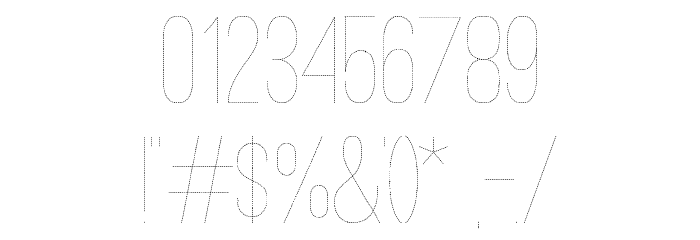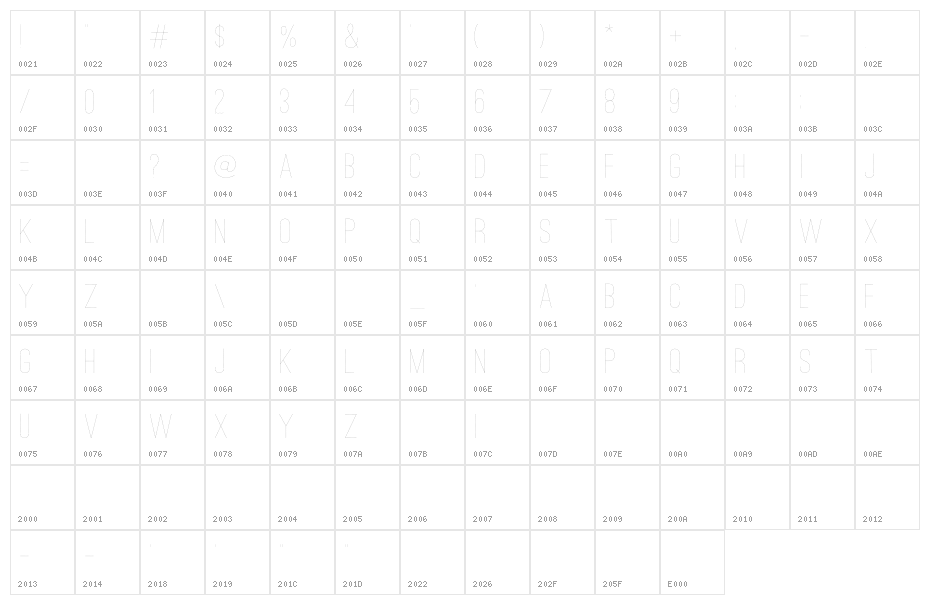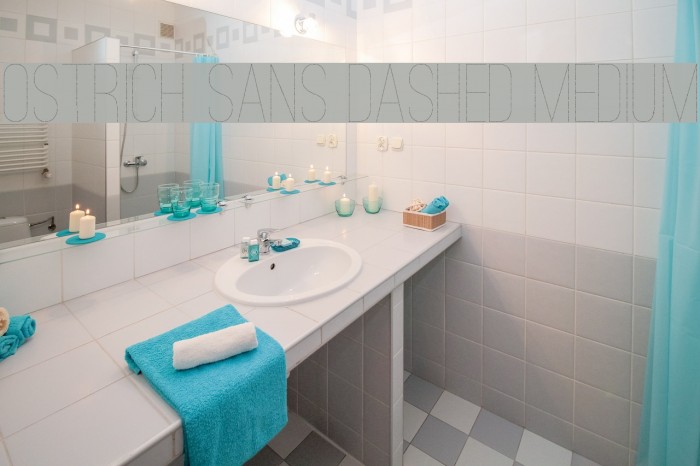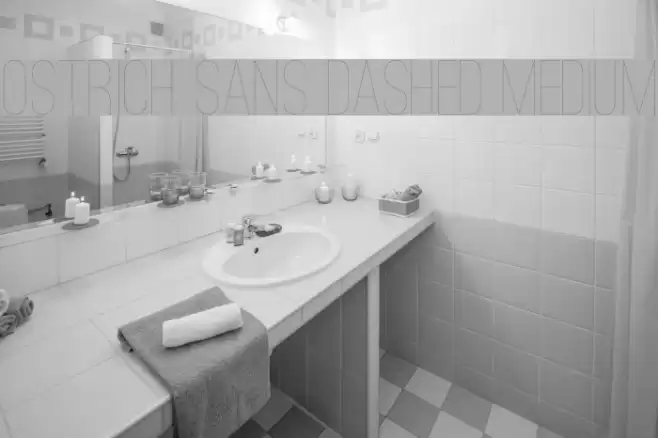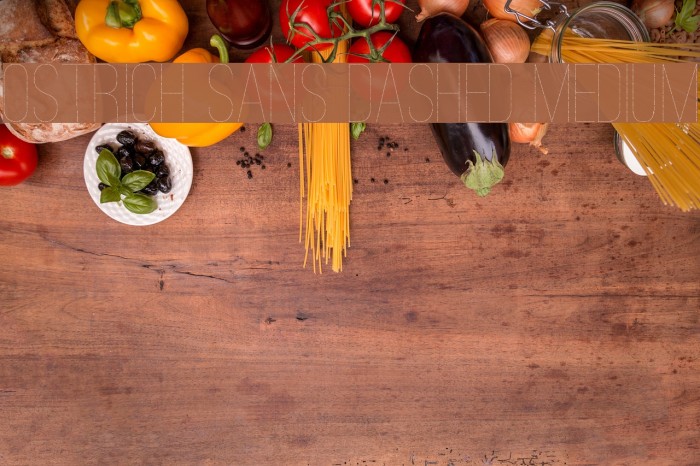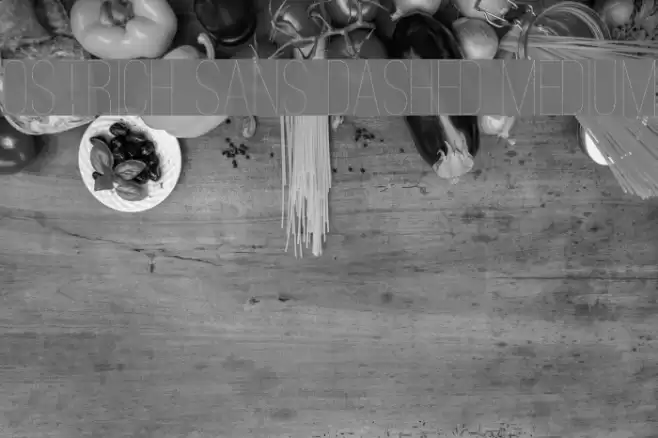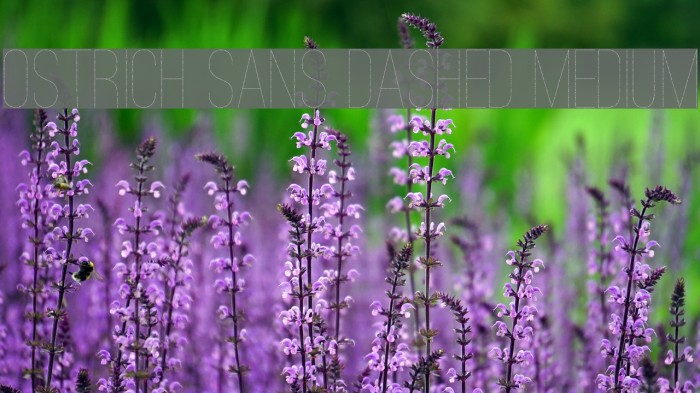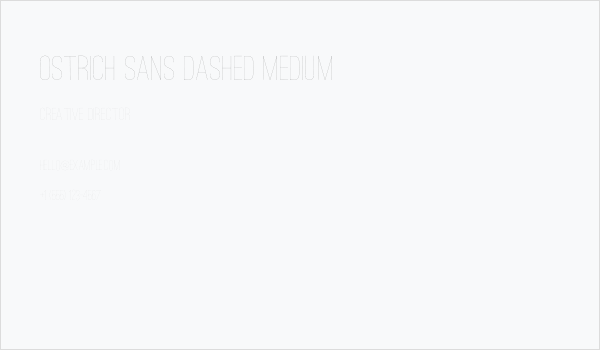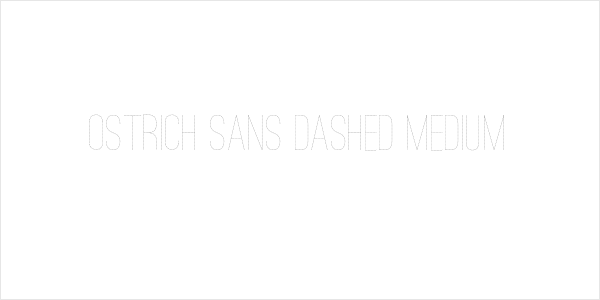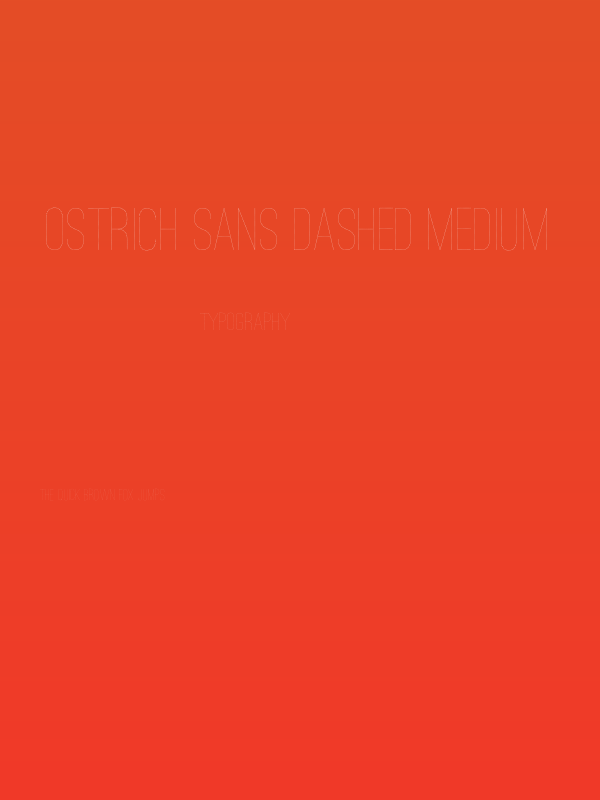
Ostrich Sans Dashed Medium Font
Ostrich Sans Dashed Medium Description
This font features a unique dashed design, giving it a modern and innovative appearance. The characters are constructed with evenly spaced dots, creating a sense of lightness and openness. The uppercase and lowercase letters maintain a consistent height and width, contributing to a clean and organized look. The numerals and special characters are designed with the same dashed style, ensuring uniformity across all glyphs. This font's minimalist approach makes it suitable for contemporary design projects where a subtle yet distinctive typeface is desired.
| Proposed Projects | Ideal for digital media, tech branding, modern posters, and minimalist graphic design projects. |